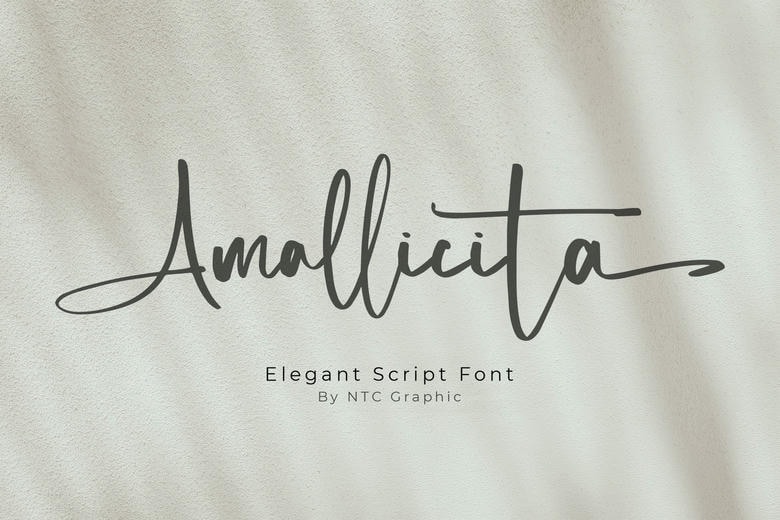
Amallicita Font
Amallicita is a beautiful and light handwritten font design that has distinguishing characteristics and with perfect typographical impact. It will definitely give a luxurious touch that you wanted in a design project that you want to make! You will also note that this font is in PUA encoded hence you are able to have effortless access to all the great glyphs and ligatures!
Amallicita Handwritten Script Font